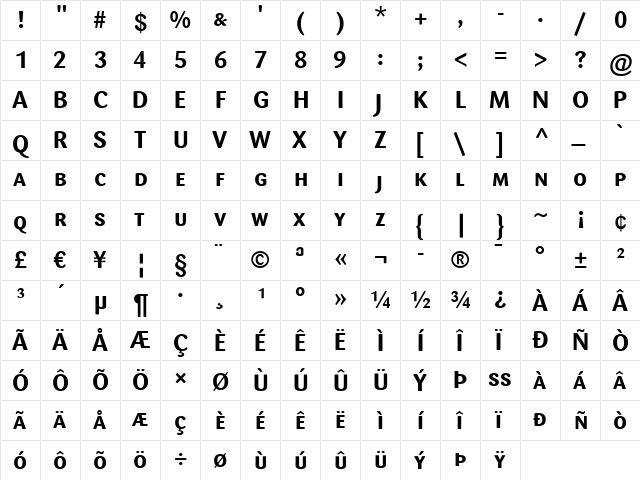
Sari Bold
Design Context for Sari Typeface
Sari offers clean, dependable letterforms without strong stylistic allegiance, making it a practical choice for designers who need flexibility. The heavy weight commands attention and anchors typographic hierarchies.